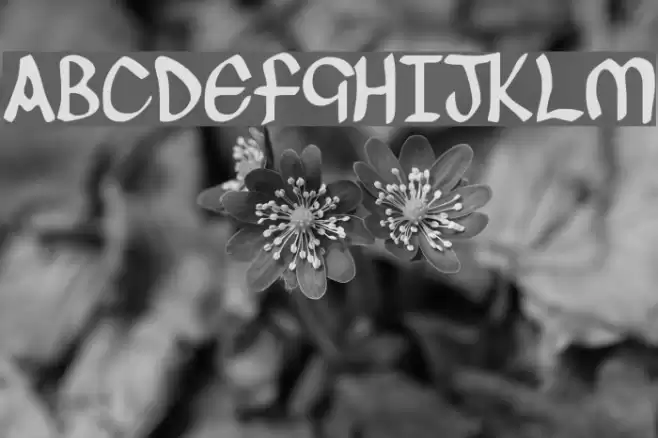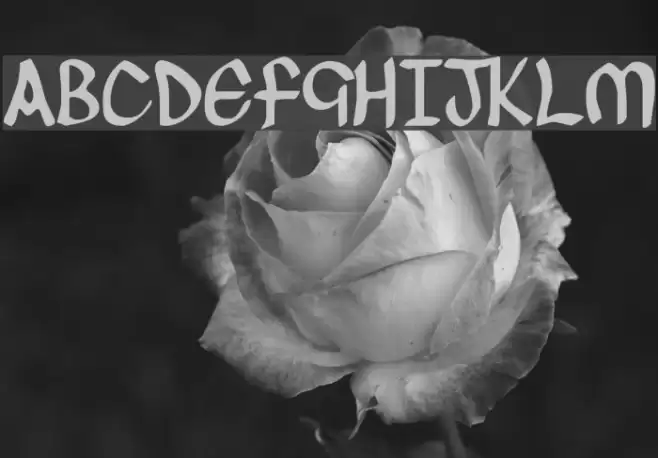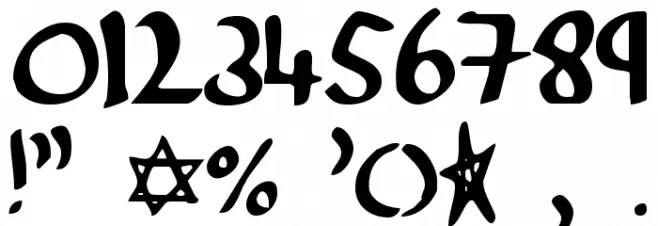
O'Connor Font
O'Connor Description
This font features a playful and whimsical design, characterized by its bold and rounded letterforms. The strokes are thick and consistent, giving it a strong presence on the page. The uppercase letters have a unique, slightly slanted appearance, while the lowercase letters maintain a more traditional form. The numbers are equally bold, with a distinct style that complements the alphabet. Special characters are creatively designed, adding to the font's overall charm. This font is ideal for projects that require a fun and engaging look.
A bold, playful font with rounded and whimsical letterforms from Handwritten fonts.
- Proposed Projects: Great for children's books, playful branding, posters, and creative invitations.
- Overall Style: Playful